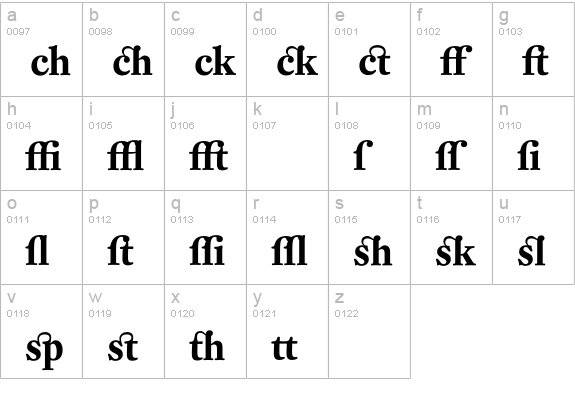
DTL Fleischmann D Bold Alt is a strong, high-contrast variant in the DTL typeface family \xE2\x80\x94 well suited to headlines, attention-grabbing titles, and strong calls-to-action.
The DTL Fleischmann D Bold Alt font is a bold and striking typeface that exudes a sense of strength and modernity. With its clean lines and sharp edges, this font is perfect for making a bold statement in your designs. Whether you're looking to create eye-catching headlines or add a touch of sophistication to your branding, the DTL Fleischmann D Bold Alt font has you covered. Best of all, this font is available for free download at FontsMarket.com. That's right, you can easily access this versatile typeface and incorporate it into your projects without breaking the bank. Don't miss out on the opportunity to elevate your designs with the DTL Fleischmann D Bold Alt font – download it today and unleash your creativity!